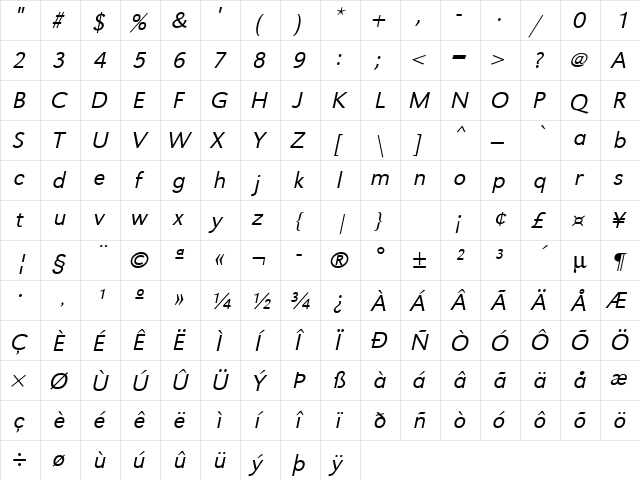
URWGroteskTLigWid Oblique Font Preview
URWGroteskTLigWid Oblique
Design Context for URWGroteskTLigWid Typeface
URWGroteskTLigWid has the quiet confidence of well-executed sans-serif typography: versatile, unobtrusive, and dependable at any size. The dynamic lean of this cut emphasises speed and emphasis in any layout.
Font Pairing: Works well alongside a characterful serif or display font that can carry the expressive load while URWGroteskTLigWid handles the functional copy.
Pro Tip: Use URWGroteskTLigWid for UI labels, navigation, and short-form body copy where clean legibility is the priority.